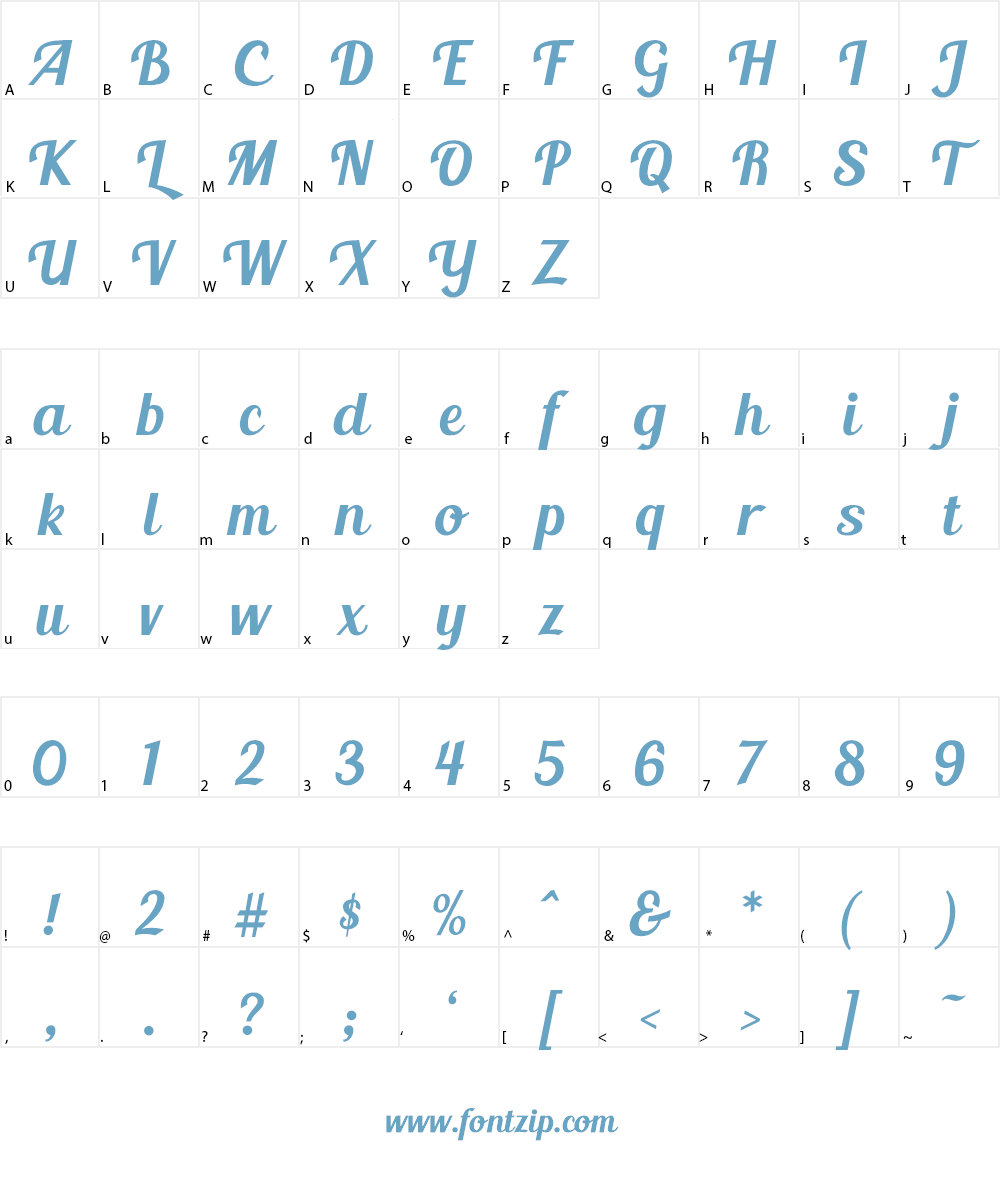
Blenda Script is a free experimental font inspired by lobster font, a bold vintage script. can be used for various purposes. Such as news, posters, logos, badges etc.